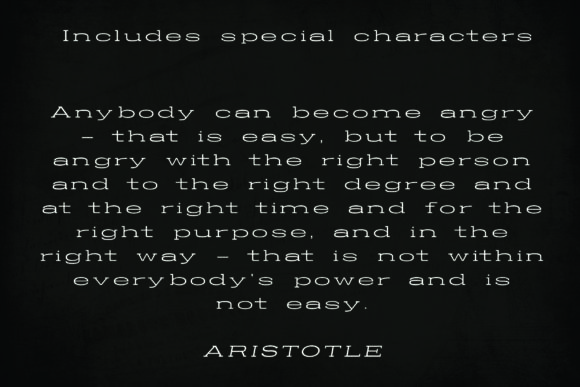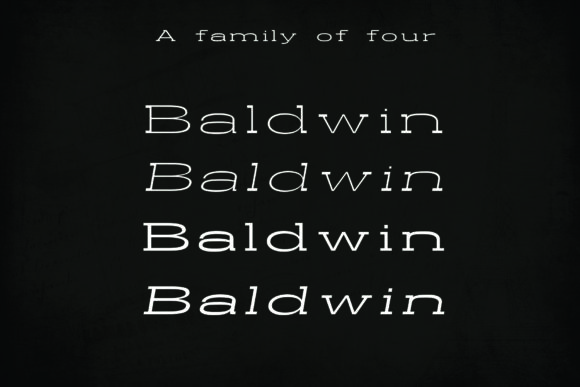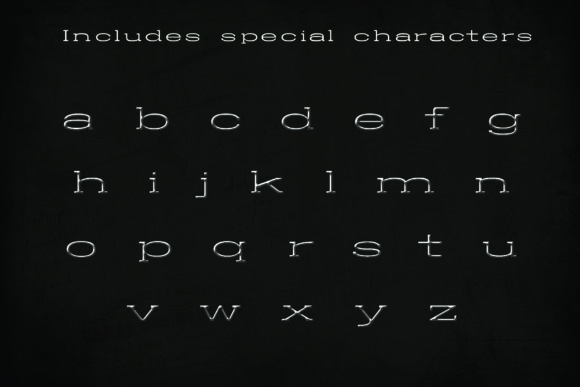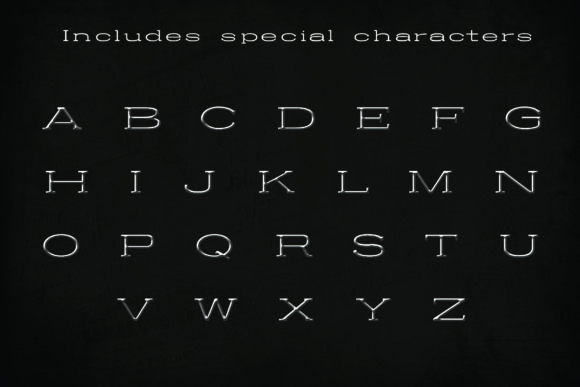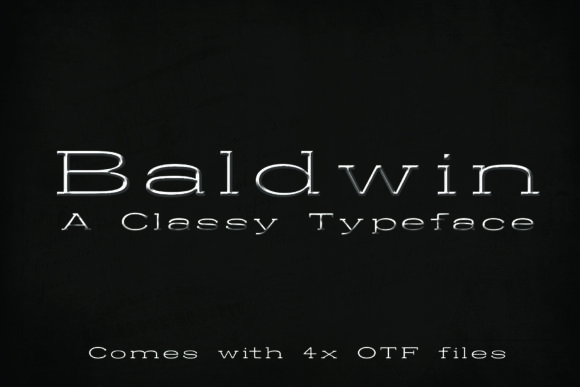
Baldwin
Baldwin: A Classic and Versatile Slab Serif Font
Baldwin is a distinctive slab serif font that combines classic design with versatility. This typeface offers designers a powerful tool for creating impactful typography across various design projects.
Key Features of Baldwin
• Classic Design: Features a timeless slab serif aesthetic
• Versatile Application: Perfect for use in any design project
• Multiple Styles: Comes in Regular, Italic, Bold, and Bold Italic variants
• Slab Serif Structure: Incorporates the characteristic thick, rectangular serifs typical of slab serif fonts
• Comprehensive Character Set: Likely includes a wide range of characters and glyphs
Font Styles
Baldwin offers a complete family of styles, including:
• Baldwin Regular
• Baldwin Italic
• Baldwin Bold
• Baldwin Bold Italic
Ideal Uses for Baldwin
Baldwin’s classic design and multiple styles make it suitable for a wide range of applications, including:
• Editorial design and publishing
• Branding and logo creation
• Website headers and digital content
• Advertising and marketing materials
• Packaging design
• Signage and environmental graphics
When incorporating Baldwin into your designs, consider the following tips:
• Utilize different styles within the family to create hierarchy and visual interest
• Experiment with various sizes to showcase the font’s versatility
• Consider pairing with sans-serif fonts for a balanced, contemporary look
• Use for both headlines and body text to maintain consistency in your designs
Baldwin is an excellent choice for designers looking for a classic and versatile slab serif font. Its range of styles and timeless design make it stand out in the world of typography. Whether you’re working on logo designs, creating layouts for editorial projects, or developing branding for various businesses, Baldwin offers the perfect blend of tradition and flexibility.
Explore how Baldwin can bring a classic edge to your design projects. From elegant headlines to readable body text, this font family provides the tools to create impactful and versatile typography that stands out in various design contexts.